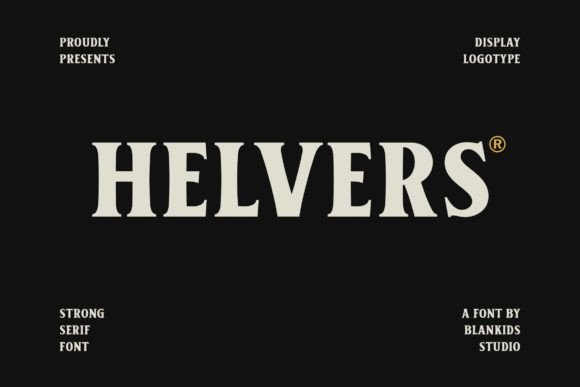
Introducing Helvers Font, the ultimate solution for captivating and unforgettable designs! Created by the talented team at Blankids Studio, this modern and sleek-looking serif font is the perfect choice for anyone seeking to elevate their creations to new heights.
With its clean and organized appearance, Helvers Font is guaranteed to leave a lasting impression on your audience. Whether you're designing display boards, advertisements, or website headers, this font will effortlessly catch the eye and convey your message with style.
Why settle for ordinary when you can have extraordinary? Helvers Font is here to add that touch of sophistication and elegance to your projects that will set them apart from the rest. Say goodbye to dull and uninspiring designs, and say hello to creativity unleashed!
The versatility of Helvers Font knows no bounds. It adapts effortlessly to any context, allowing you to seamlessly integrate it into your branding, packaging, or social media posts. Its timeless appeal ensures that your designs will remain fresh and relevant for years to come.
But it's not just about aesthetics. Helvers Font is also a powerhouse when it comes to functionality. With its extensive character set and multiple weights, you have the freedom to experiment and create a wide range of typographic styles. Let your imagination run wild and watch as your designs come to life.
When it comes to captivating your audience, words matter. That's why Helvers Font is packed with emotional impact. Each letter is carefully crafted to evoke a sense of wonder, excitement, and beauty. Your message will resonate deeply with your viewers, leaving a lasting impression that will keep them coming back for more.
In conclusion, Helvers Font is the epitome of modern elegance. Its sleek and organized design, combined with its emotional impact and versatility, make it the perfect choice for anyone looking to create stunning and captivating designs. Don't miss out on this opportunity to elevate your creations to a whole new level. Download Helvers Font today and let your imagination soar!